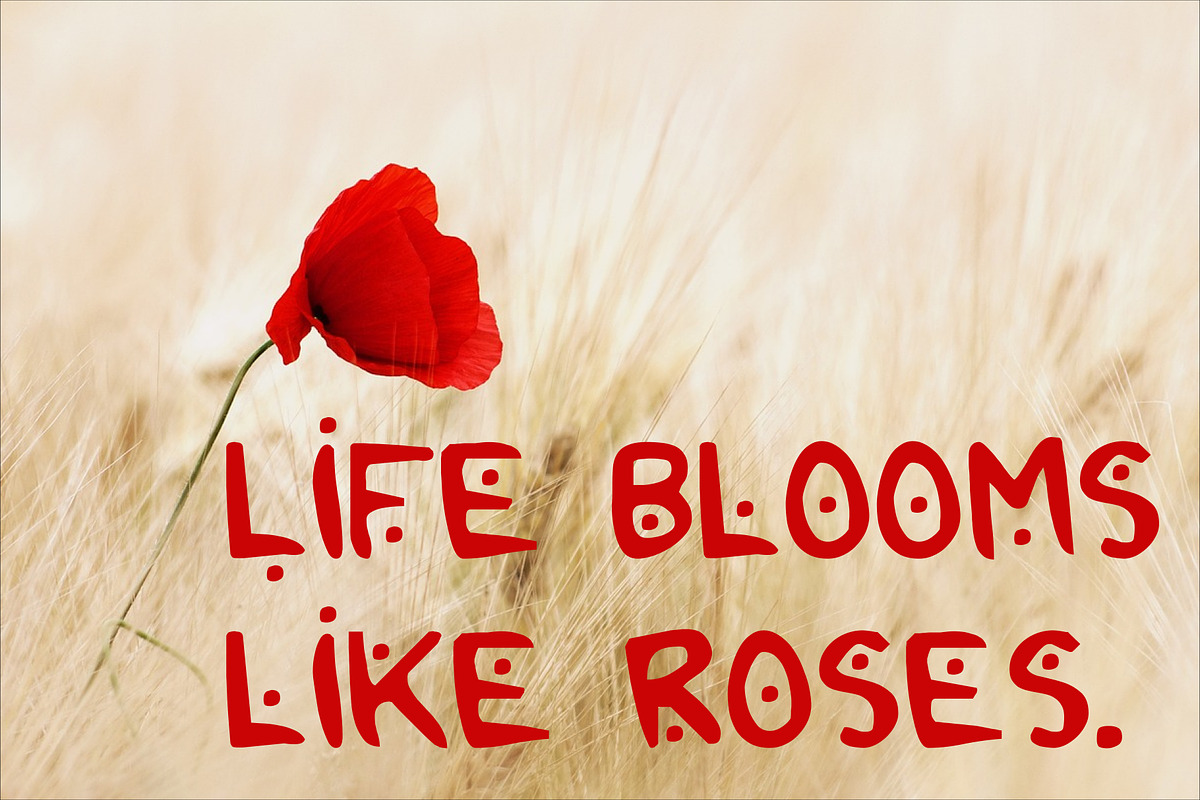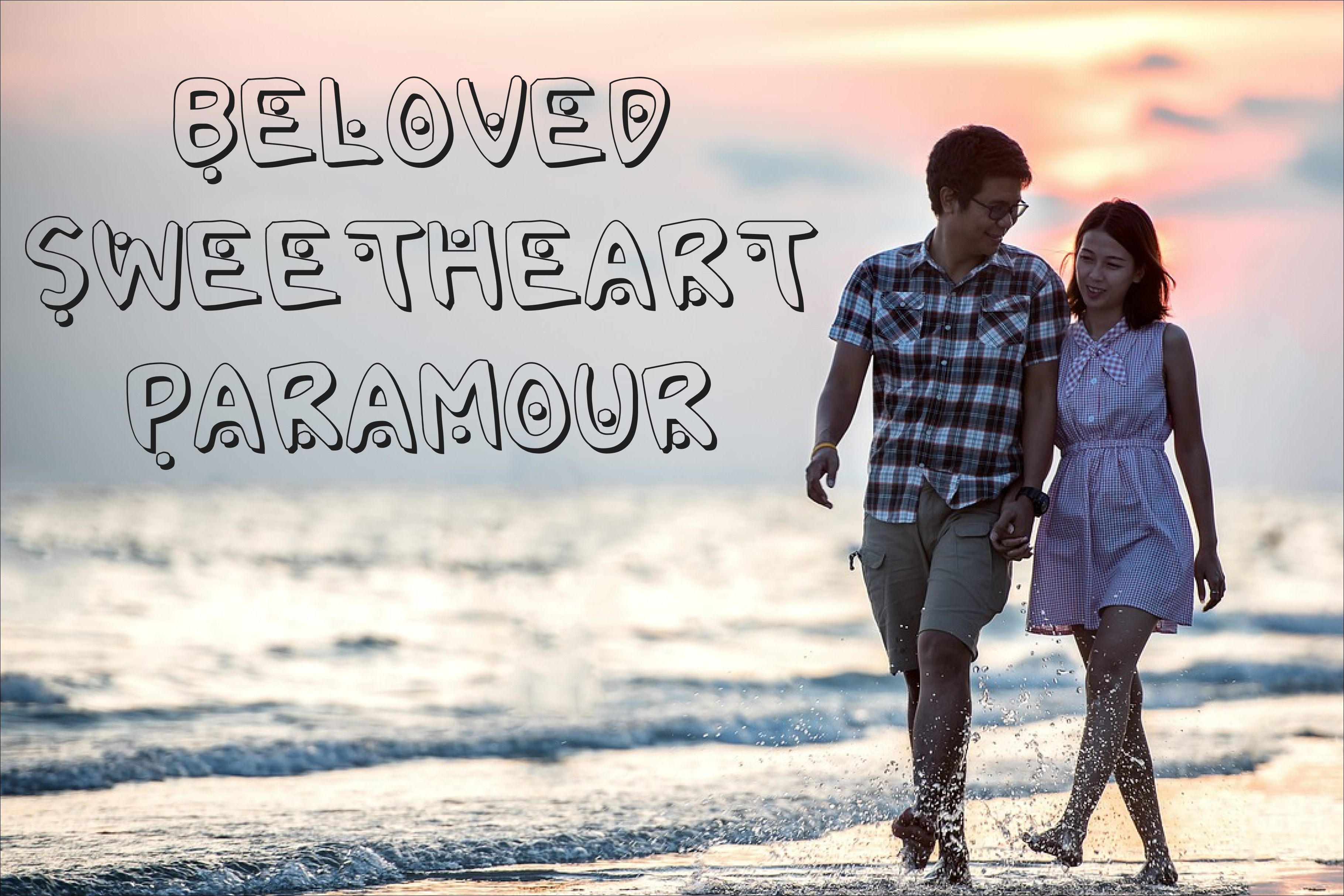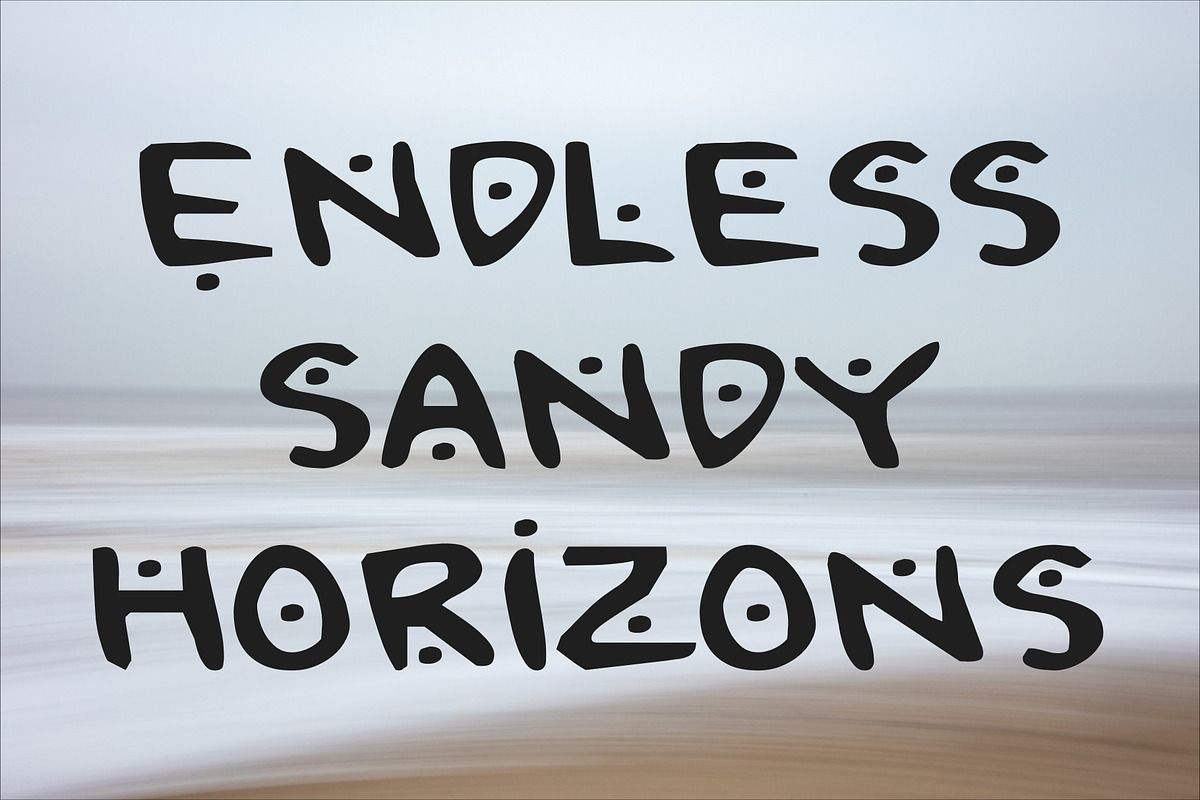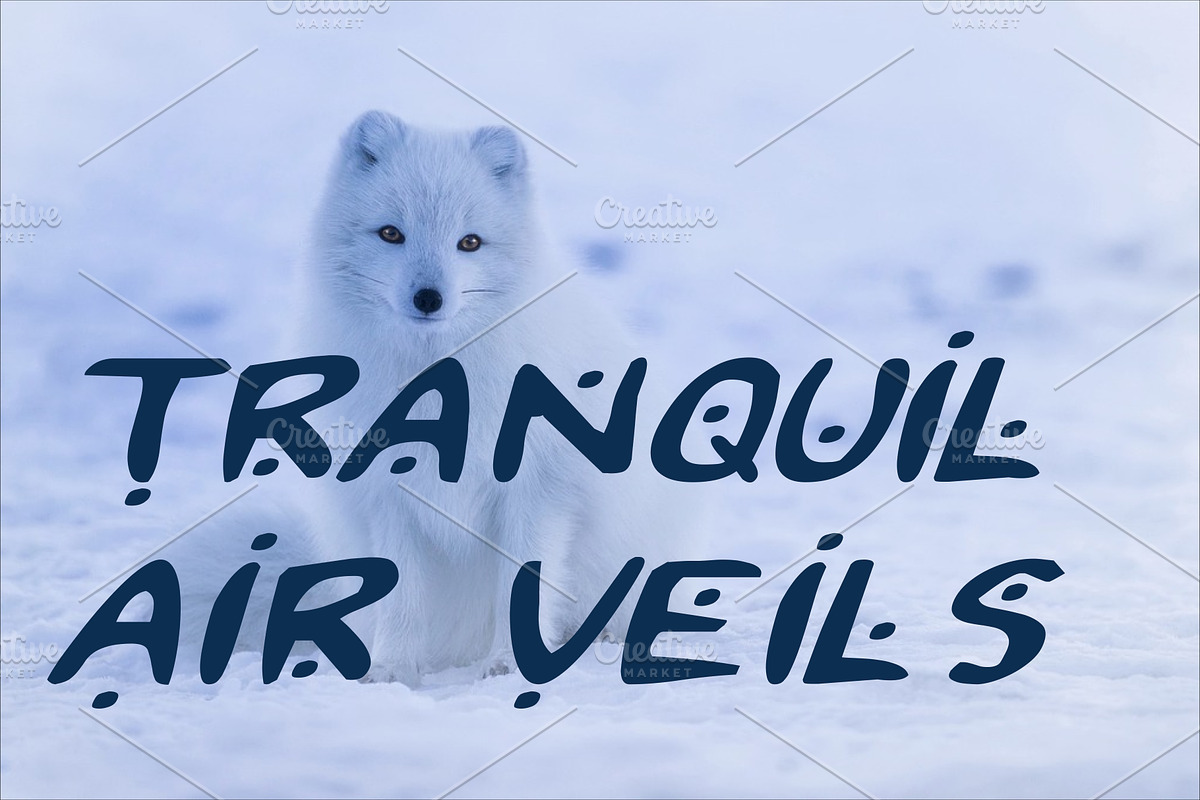
2Toon2 Elegant Serif Font Typeface
We are introducing our latest elegant font, designed to bring sophistication and class to your projects. This exquisite typeface blends timeless beauty with modern versatility, making it perfect for branding, invitations, editorial designs, and more. Each letter is meticulously crafted to ensure flawless readability and an aesthetic of luxury.
Ideal for both professional designers and creative enthusiasts, this font will elevate your work, making it stand out and leave a lasting impression. Transform your designs with this stunning font and let your creativity shine like never before. Experience the perfect fusion of elegance and functionality – get your copy today!